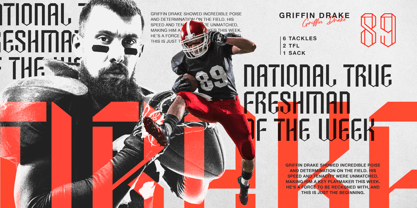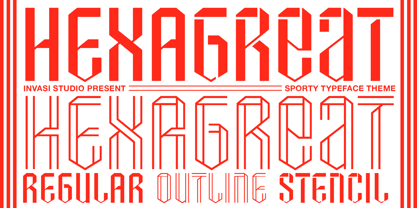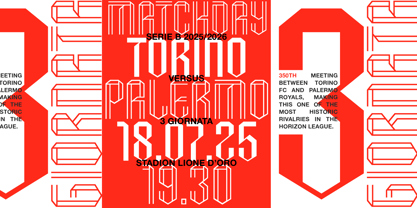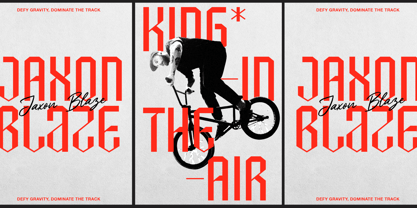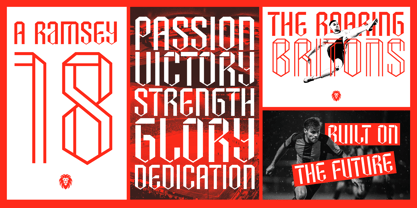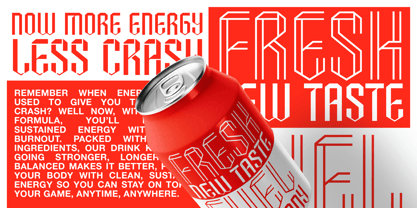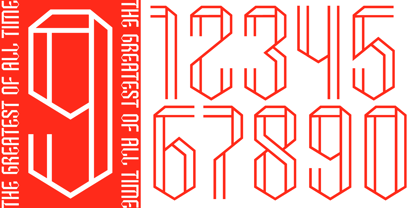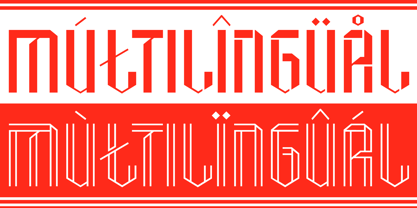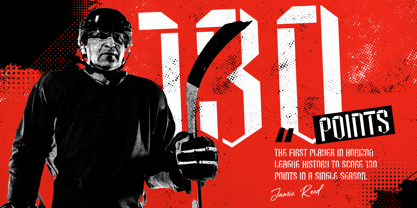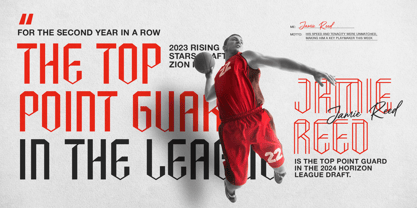
Hexagreat
by Invasi Studio
The Hexagreat Font Family was designed by Gha Arizal and published by Invasi Studio. Hexagreat contains 3 styles and family package options. More about this family
Hexagreat is crafted to fuel designs with the pulse of competition and the energy of sport. Inspired by athleticism and built for bold impact, this typeface brings any project to life with strength and speed. With three distinct styles—Regular, Outline, and Stencil—Hexagreat captures the excitement of movement while ensuring your message stands strong and clear.
Designed to perform, Hexagreat features versatile alternates and supports 92 Latin languages, making it as adaptable as it is striking. Ideal for athletic branding, product packaging, team merchandise, and sports event posters, this font’s modern, edgy feel commands attention. From sports brands to energy drinks, Hexagreat transforms each project into a statement of power and style.